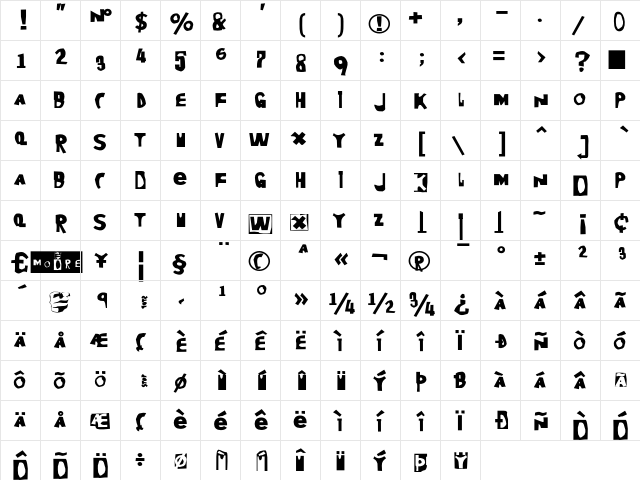
Moore899 Bold
Design Context for Moore899 Typeface
Moore899 is a composed and adaptable typeface that performs quietly and consistently across a wide range of design contexts. Its bold stroke weight gives it real presence on the page.
Pro Tip: Use Moore899 in both headline and body roles to test its range before committing to a single application.